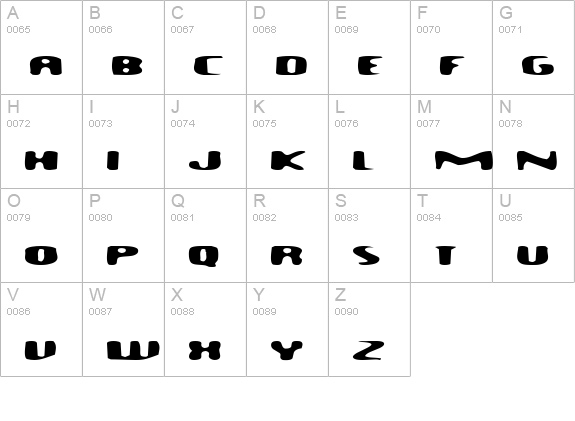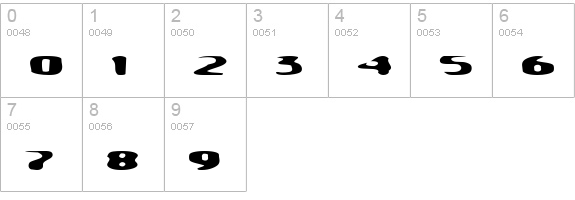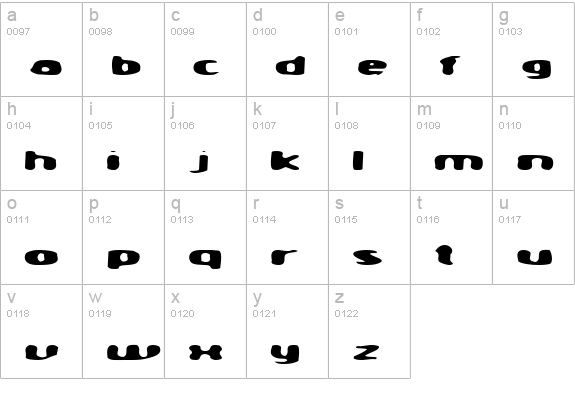
Dioptrin Font Details
Dioptrin font is a modern and elegant typeface that exudes sophistication and style. With its sleek lines and balanced proportions, Dioptrin is perfect for a wide range of design projects, from branding to editorial design. This versatile font is sure to make a statement and elevate any design it is used in. The best part about Dioptrin font is that it is completely free to download at FontsMarket.com. Whether you are a seasoned designer looking to add a new font to your collection or a beginner exploring typography for the first time, Dioptrin is a great choice. Don't miss out on this opportunity to enhance your projects with this beautiful and versatile font. Download Dioptrin today and let your creativity shine!